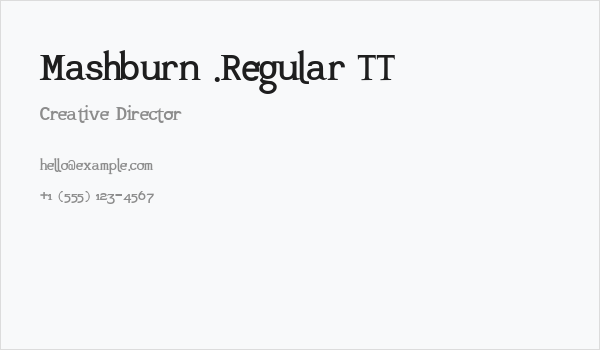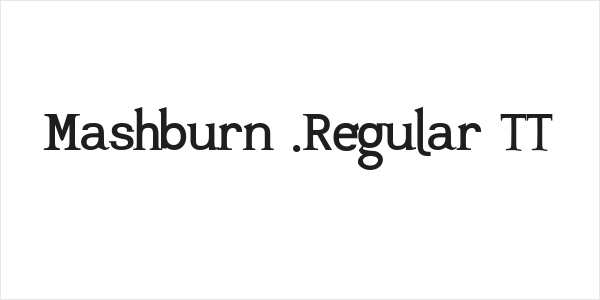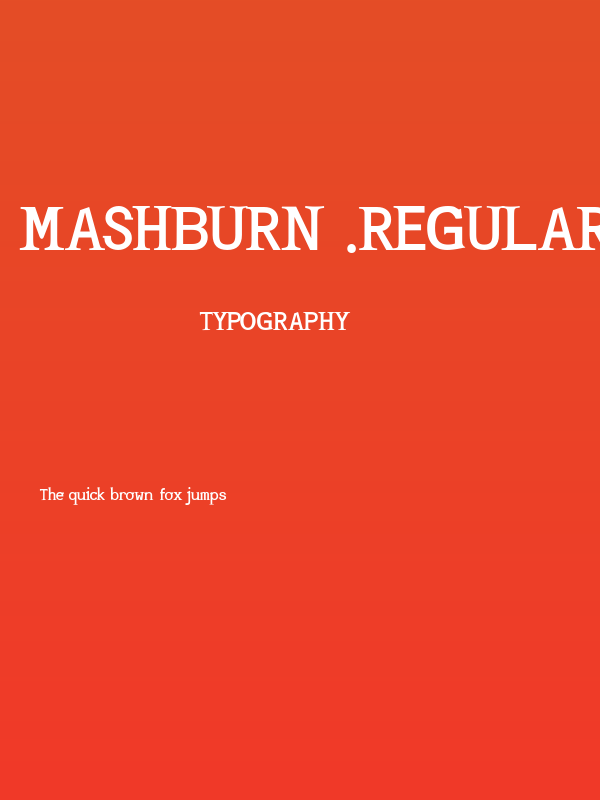
Mashburn .Regular TT Font
Mashburn .Regular TT Description
This font features a classic serif style with strong, bold strokes and pronounced serifs that give it a traditional and authoritative appearance. The uppercase letters are well-defined with a consistent height, while the lowercase letters maintain a balanced x-height, ensuring readability. The numerals are distinct and clear, making them suitable for both text and display purposes. Special characters are included, providing versatility for various applications. The overall design is reminiscent of vintage typography, yet it maintains a modern touch with its clean lines and structured form.
| Proposed Projects | Ideal for editorial design, book covers, formal invitations, and branding projects that require a touch of elegance and tradition. |